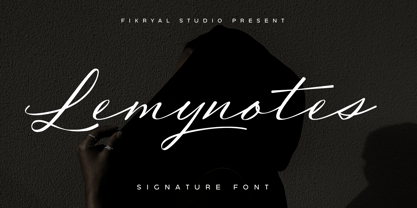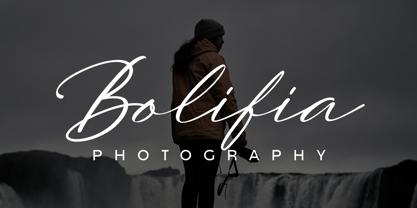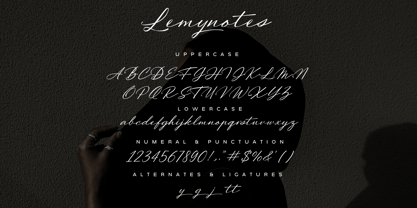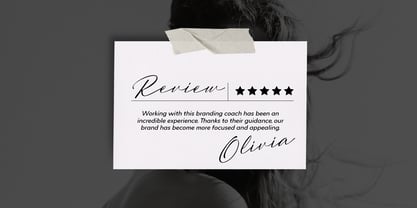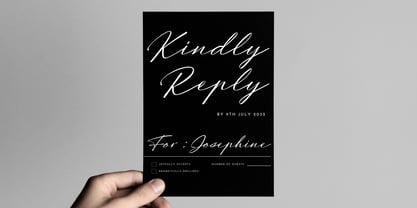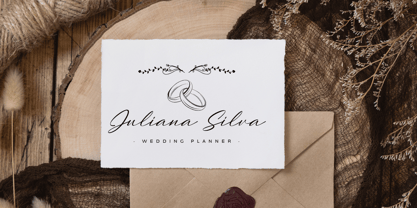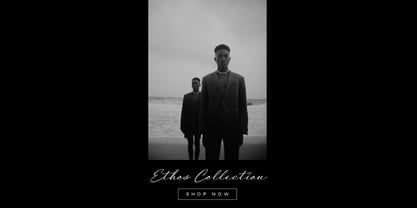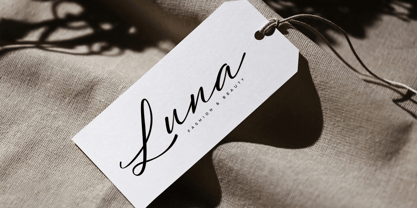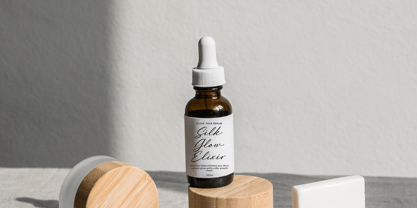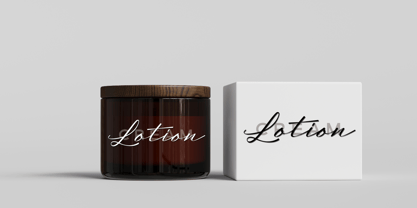
Lemynotes
by Fikryal
The Lemynotes Font Family was designed by Muhammad Fikry and published by Fikryal. Lemynotes contains 1 styles. More about this family
Lemynotes – Signature Font is a beautifully crafted handwritten typeface that captures the essence of a natural signature style. Perfect for branding, logos, wedding invitations, packaging, and social media, Lemynotes delivers an elegant and professional look to your projects.
This font features a variety of alternates and ligatures, allowing you to create personalized and stylish typography with ease. Each letter is designed with fluid strokes and graceful curves to emulate the authenticity of real handwriting.
• Uppercase & Lowercase letters
• Alternates & Ligatures
• Multilingual support
Whether you’re designing a luxury brand, a modern signature logo, or a heartfelt invitation, Lemynotes is your go-to script font for adding a touch of class and personality.